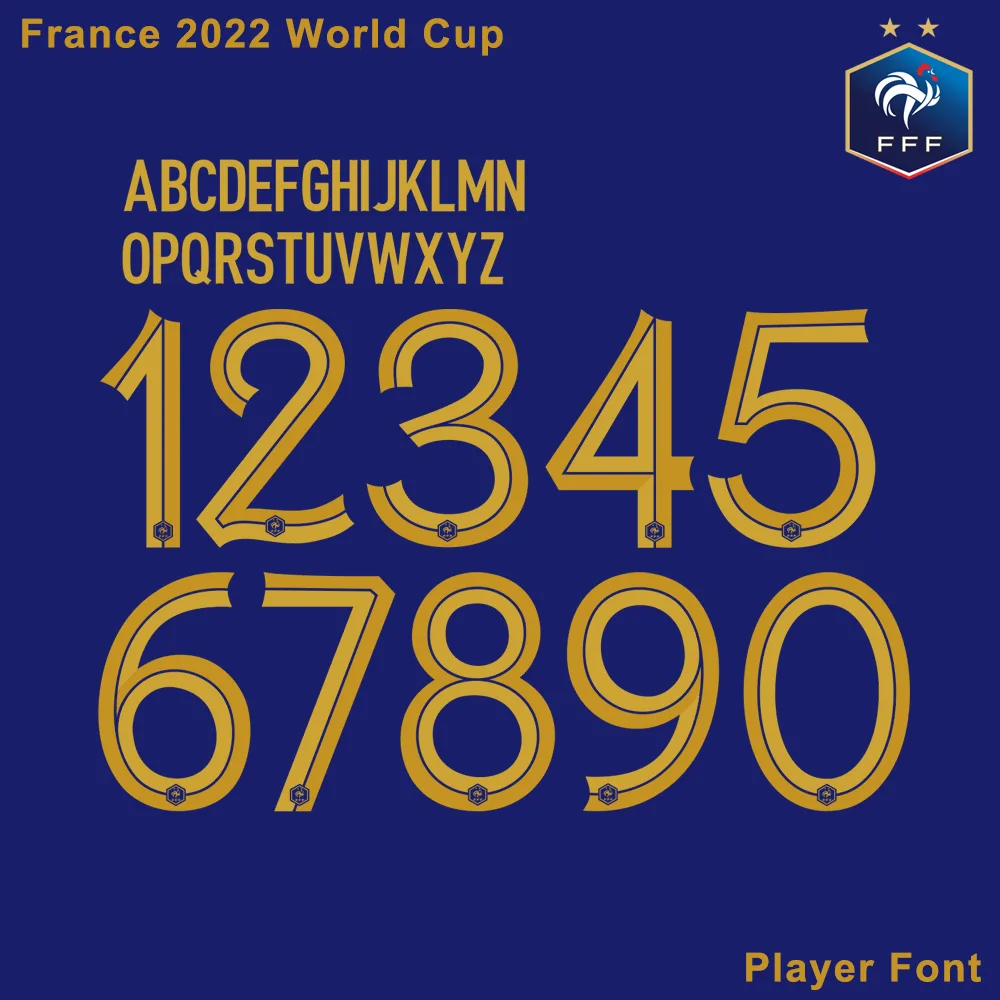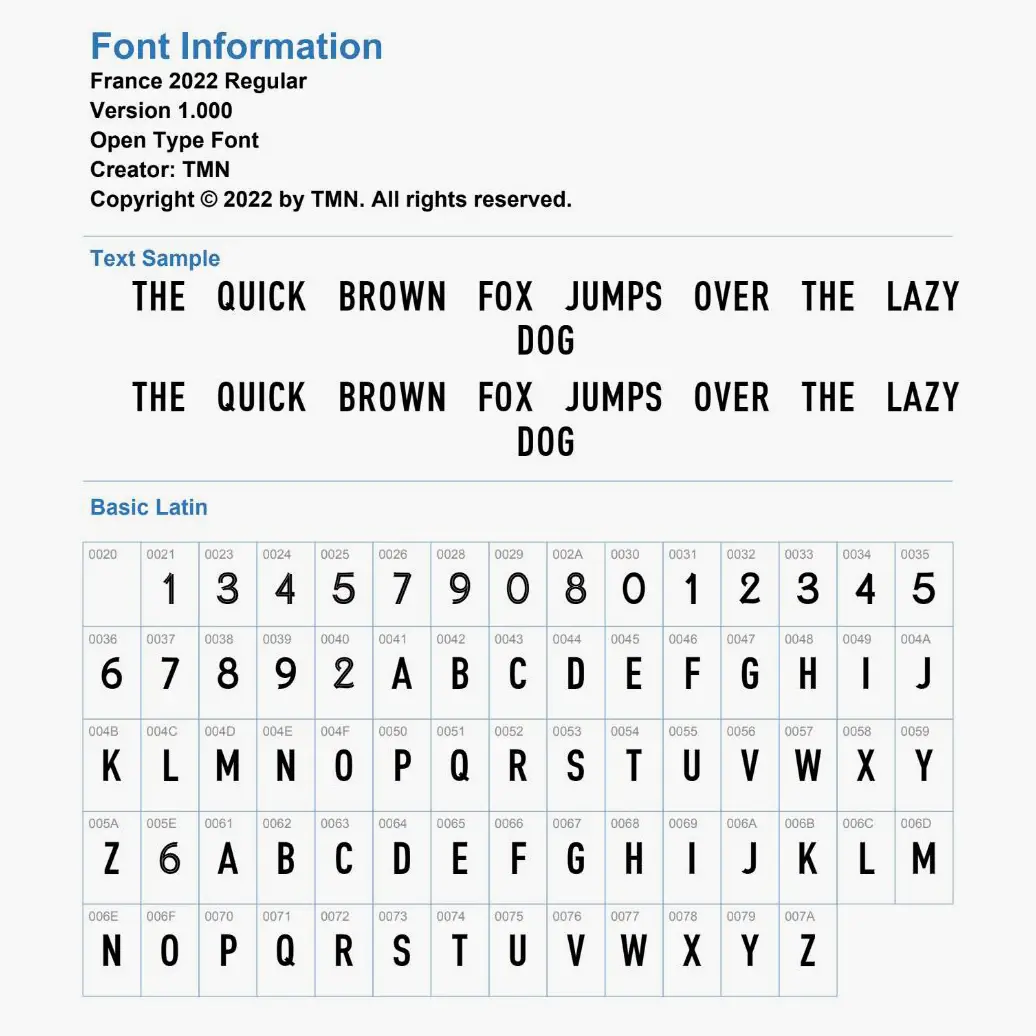
Bring the champion-tier design to your kits with the France 2022 World Cup Font.
The 2022 French National Team jersey featured one of the most sophisticated typefaces in football history. This font kit captures that exact aesthetic—slender lines, sharp serifs, and a modern tall-profile structure that looks stunning on sports apparel and digital designs alike.
Complete Character Set: Contains the full A-Z uppercase alphabet and the distinct 0-9 number set with the characteristic thin-line detailing.